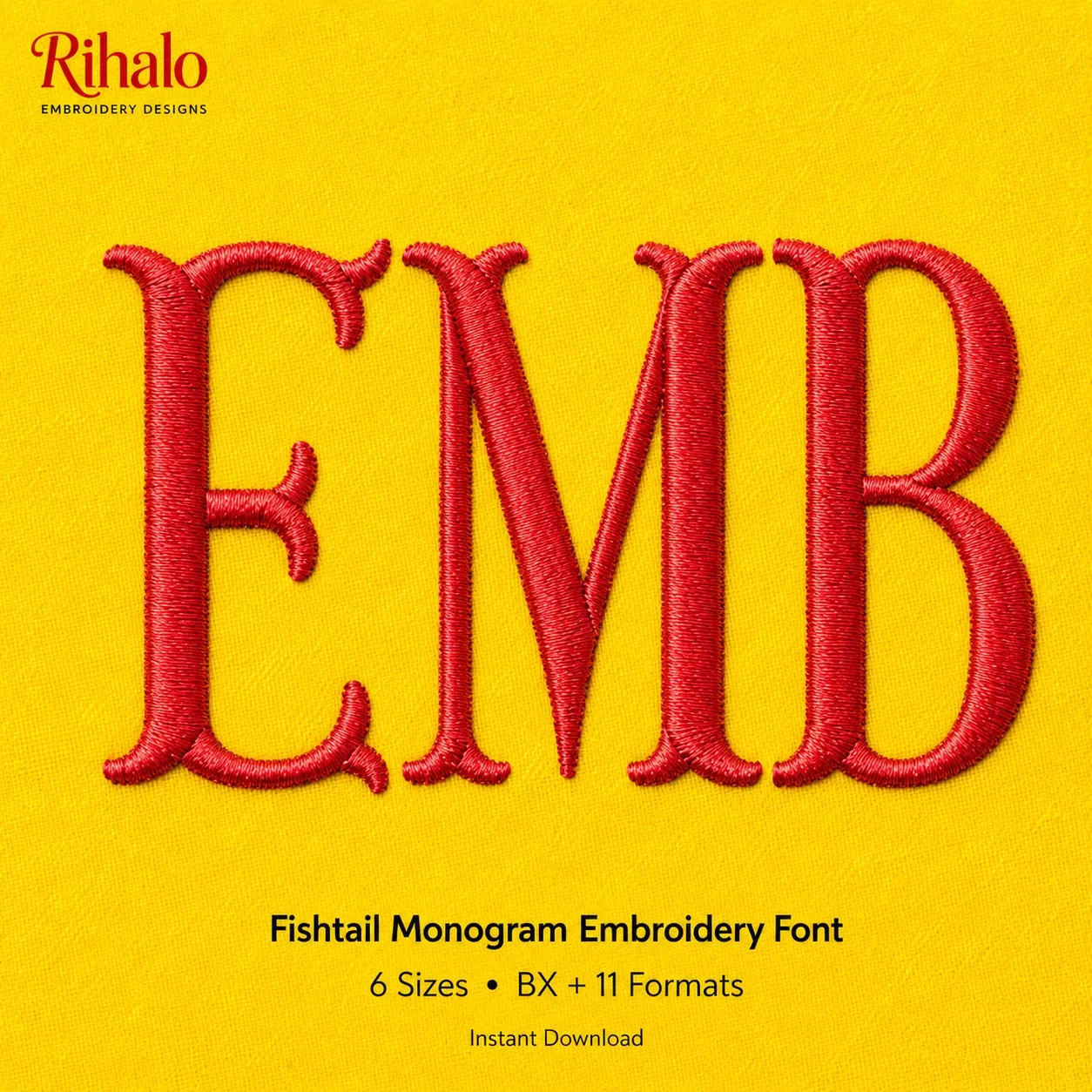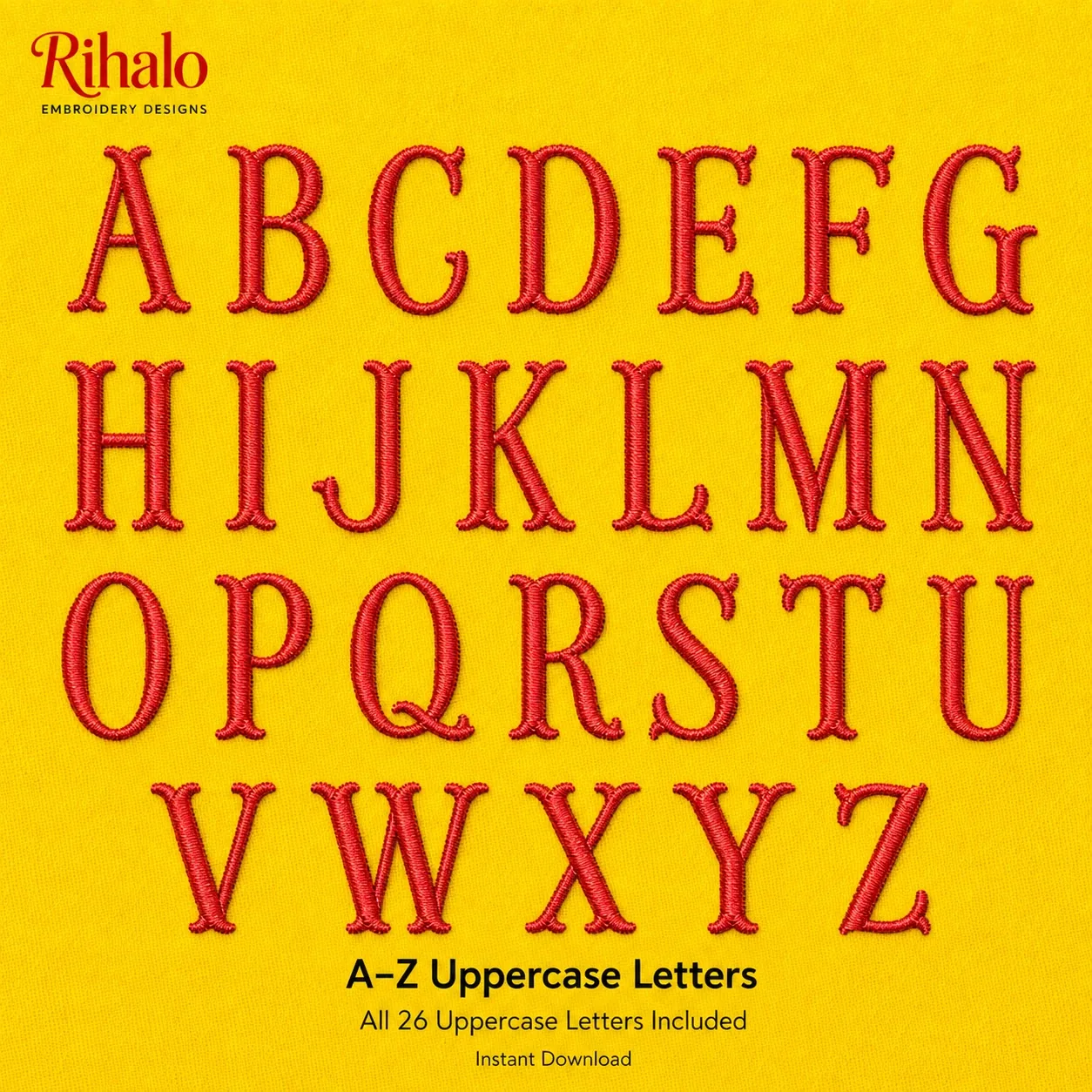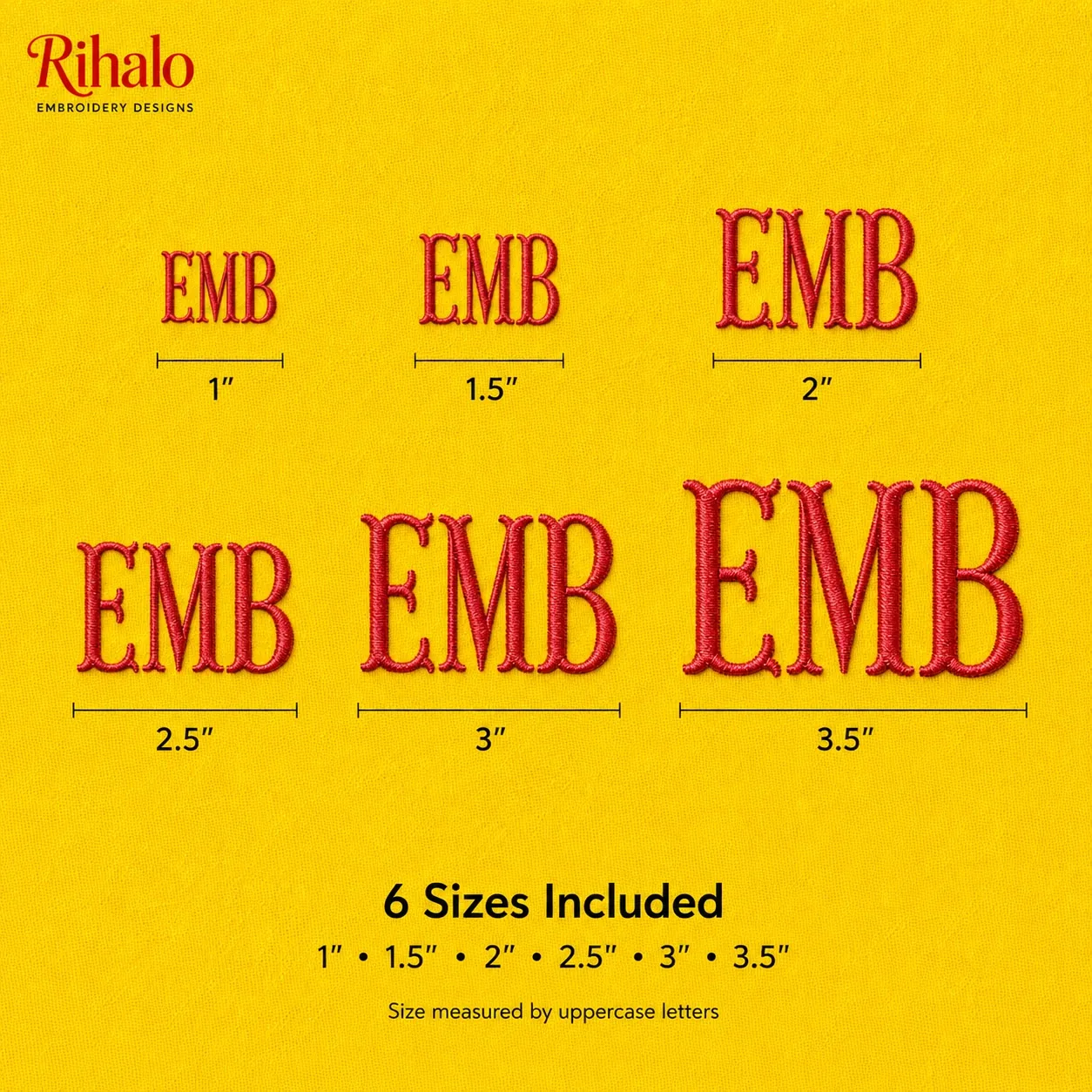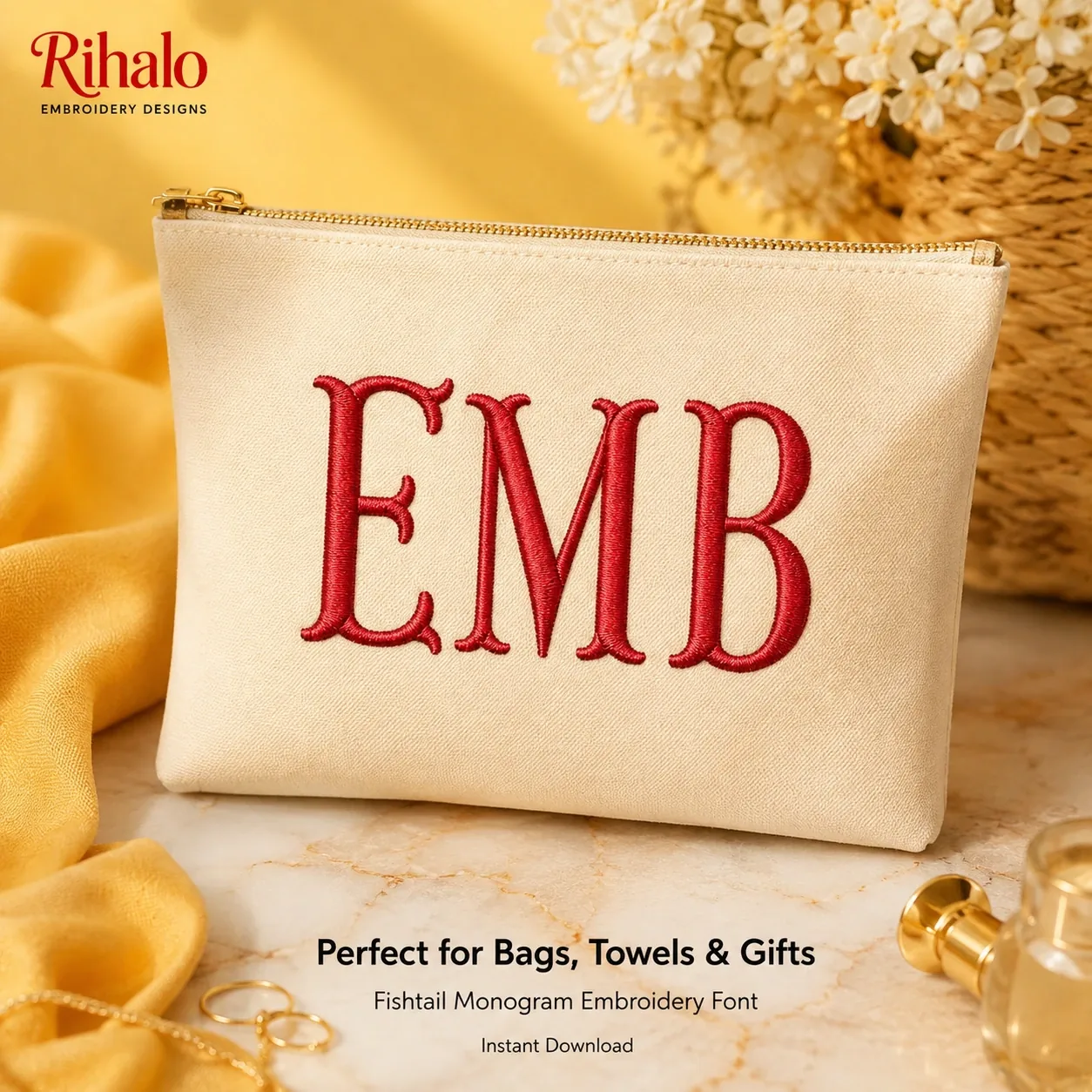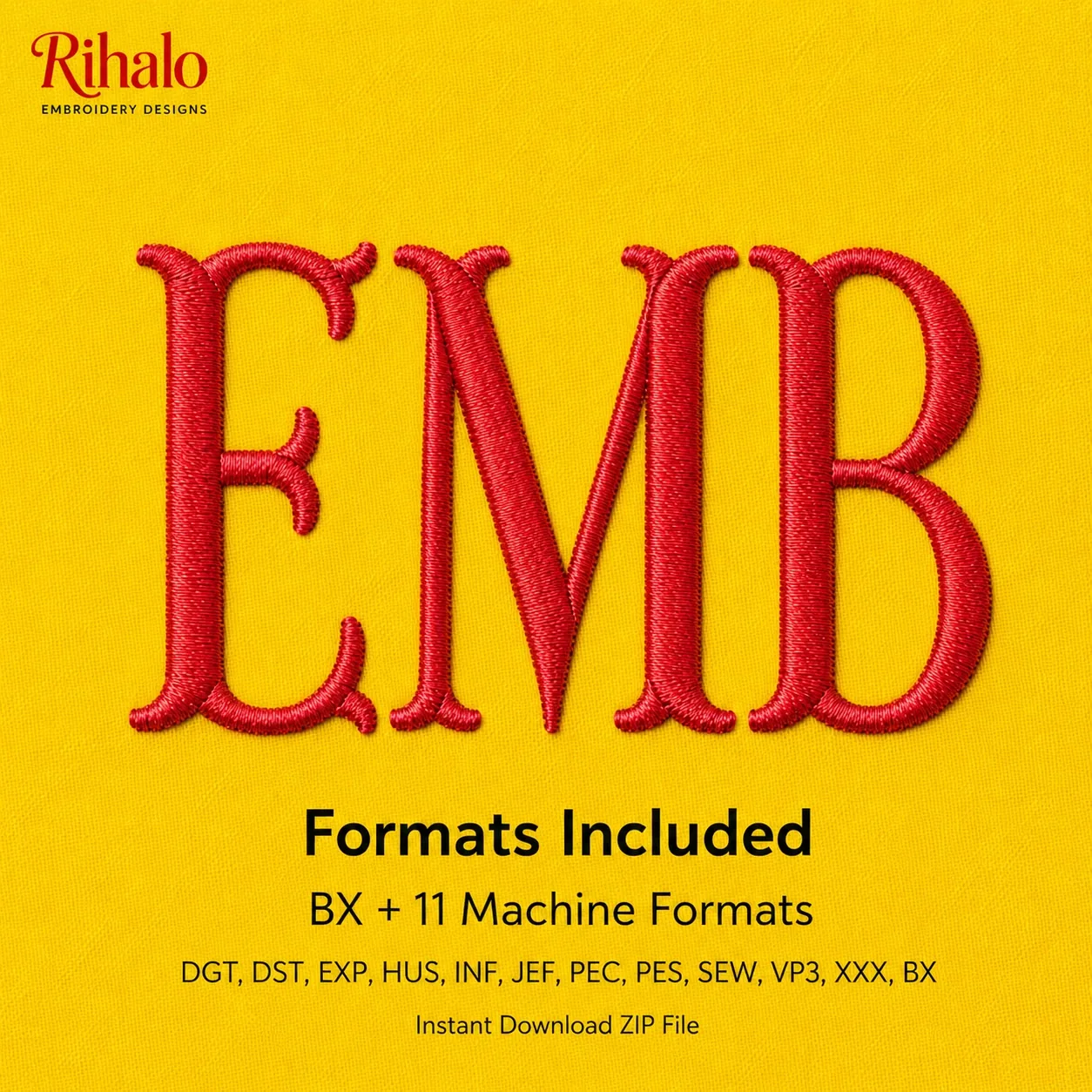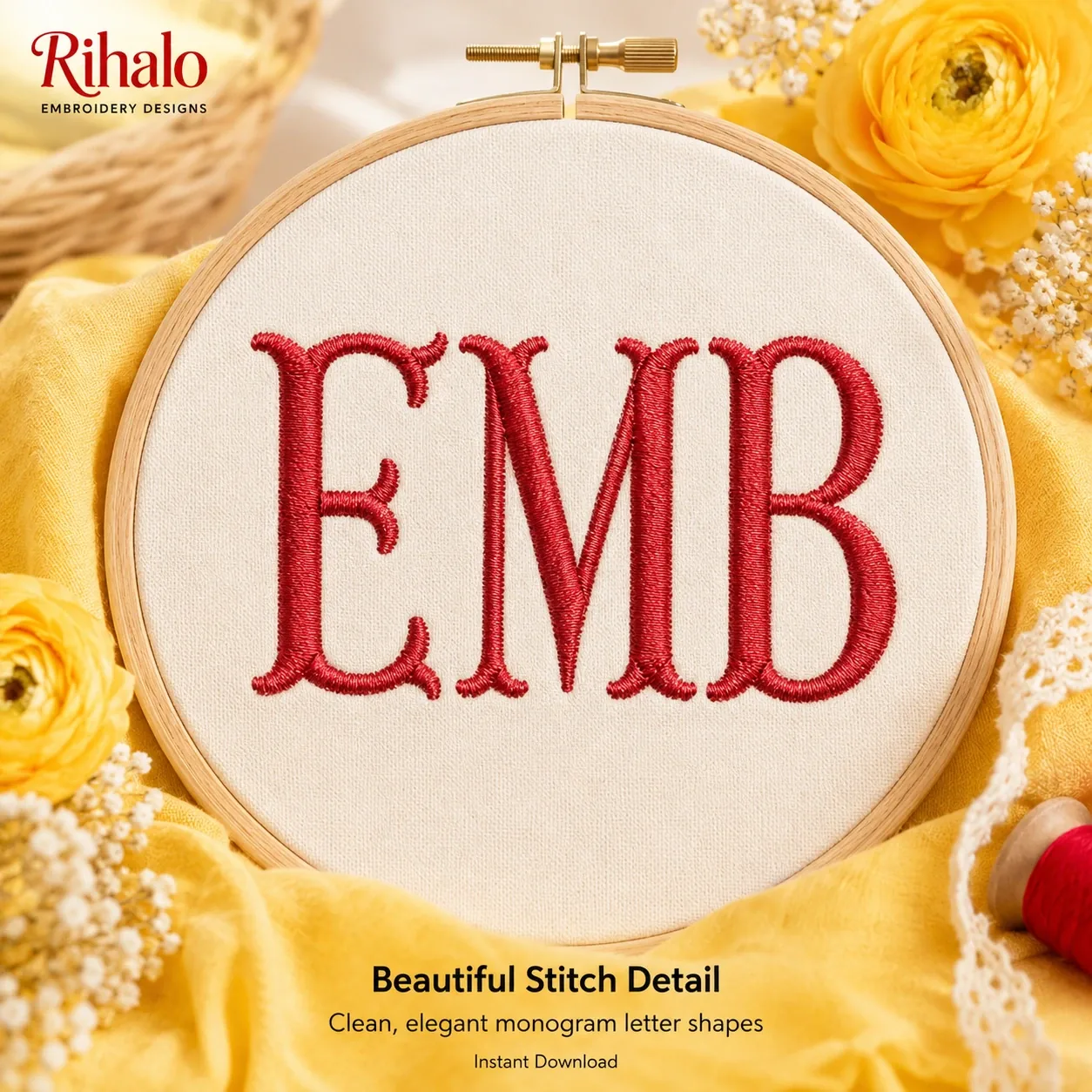
Create beautiful personalized embroidery projects with this elegant Fishtail Monogram Embroidery Font.
This machine embroidery alphabet includes all 26 uppercase letters A–Z, designed in a classic fishtail monogram style that works beautifully for personalized gifts, towels, bags, linens, baby items, boutique embroidery projects, and more.